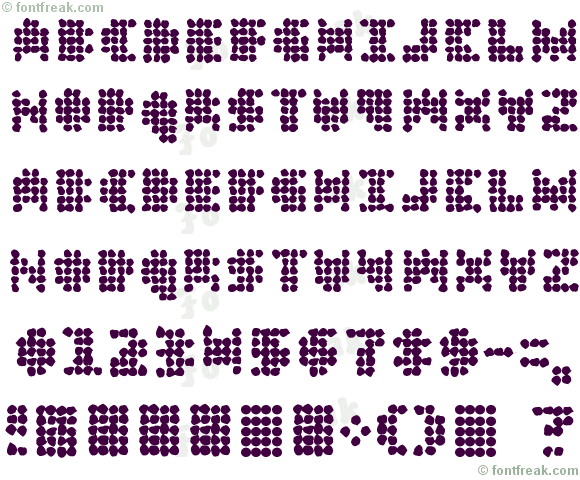
DT 104 in outbreak
DT 104
About DT 104
DT 104, designed by Pizzadude, is a unique display font that captivates with its playful and unconventional style. This font falls into the decorative category, featuring a distinctive dot-based design that gives it a modern and eye-catching appeal. The visual characteristics of DT 104 include a medium stroke weight with minimal contrast, creating a cohesive look that is both bold and approachable. The spacing between characters is well-balanced, allowing for clarity and legibility, even in larger formats.
This font is particularly well-suited for a variety of creative projects. It shines in applications such as movie posters, where its quirky style can grab attention and convey a sense of fun. DT 104 is also ideal for restaurant menus, adding a contemporary flair that can enhance the dining experience. Additionally, it can be effectively used in promotional materials for events like music festivals or art exhibitions, where an energetic vibe is desired. Graphic designers and content creators will find this font useful for branding projects, as it can help establish a memorable identity.
What sets DT 104 apart is its ability to blend creativity with functionality. This font not only captures attention but also maintains readability, making it a valuable addition to any designer's toolkit. Its playful nature invites users to think outside the box, ensuring that any project using DT 104 leaves a lasting impression.